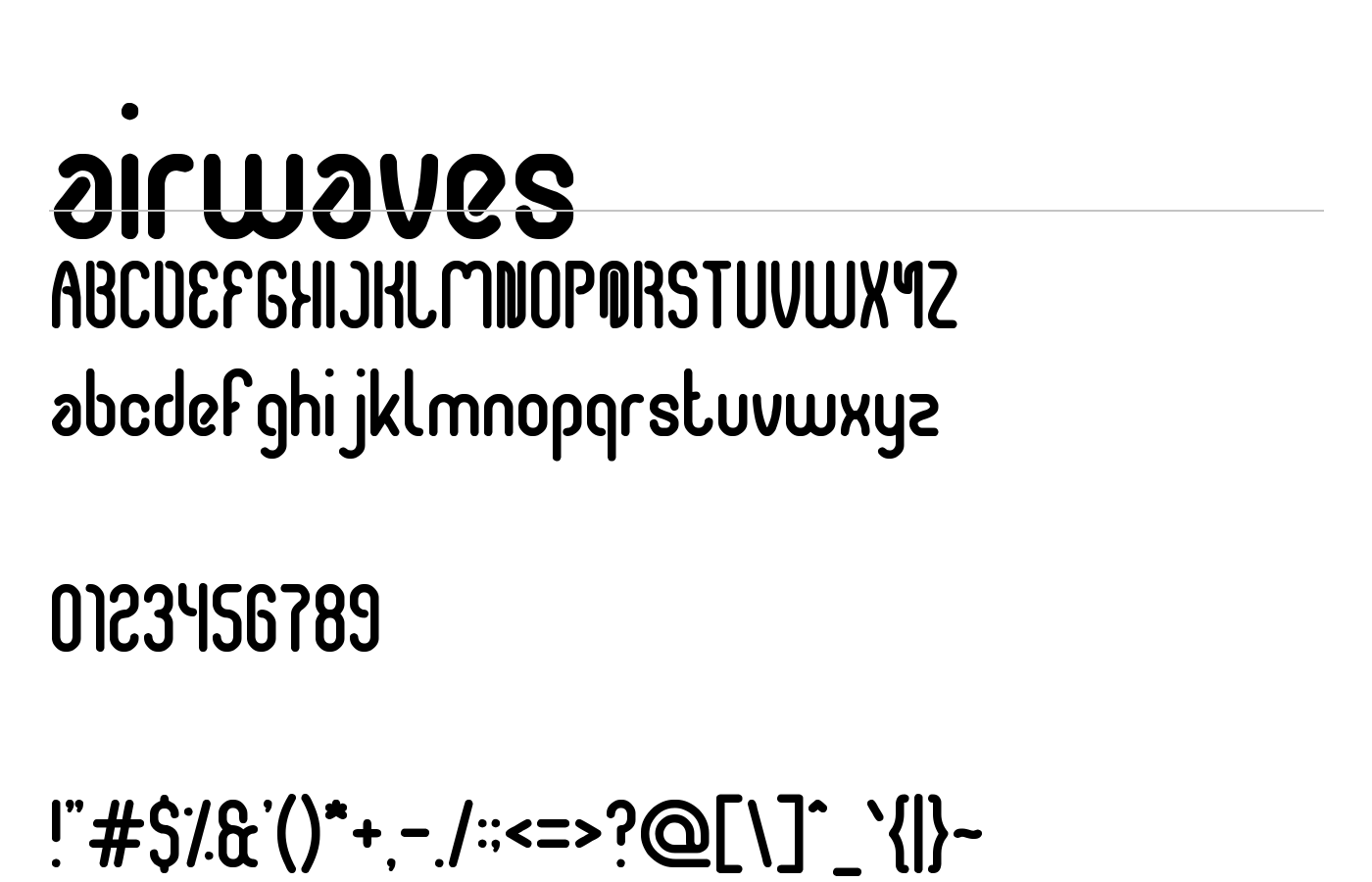
Airwaves is a modern, condensed sans serif font with a unique blend of geometric and rounded forms that give it a futuristic and playful character. Its tall x-height, consistent stroke weight, and single-story letters make it legible while maintaining a distinctive style that works well for tech-focused branding, headlines, and creative projects seeking a sleek, contemporary look. This font is ideal for dynamic logos, posters, and digital media where a bold, friendly, yet innovative impression is desired.
airwaves Font
About airwaves Font